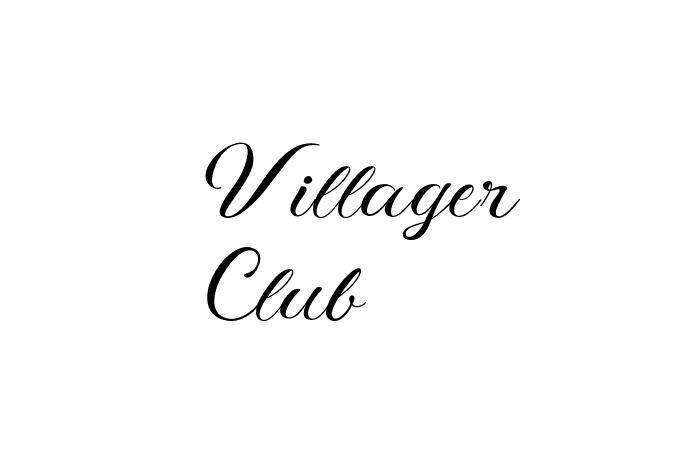
MoonTime Regular Font
MoonTime Regular font a unique & famous Script Handwritten font. This typeface is perfect for an elegant & luxury logo, book or movie title design, fashion brand, magazine, clothes, lettering, and so much more.
Font designer DmitriyChirkov
Font Family MoonTime
Typeface classification Handwritten,Script